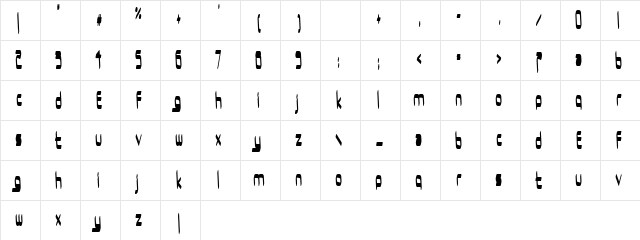
UrUrMa Regular
Design Context for UrUrMa Typeface
UrUrMa is a composed and adaptable typeface that performs quietly and consistently across a wide range of design contexts.